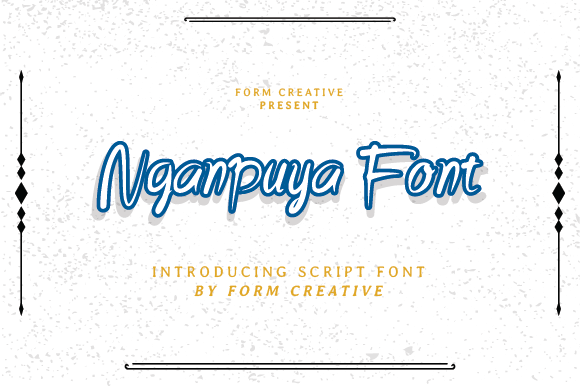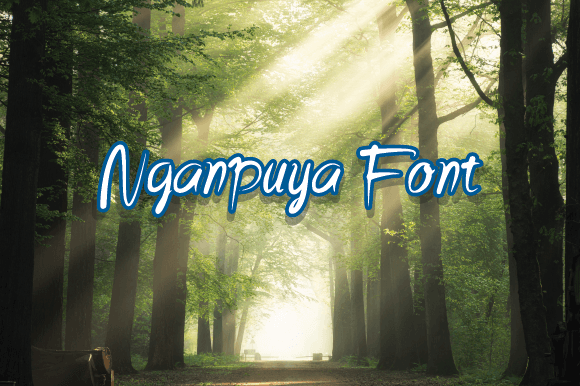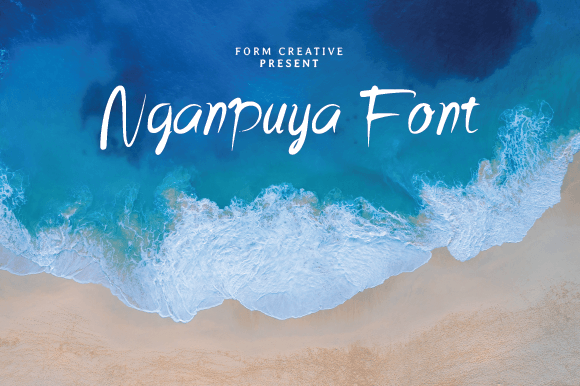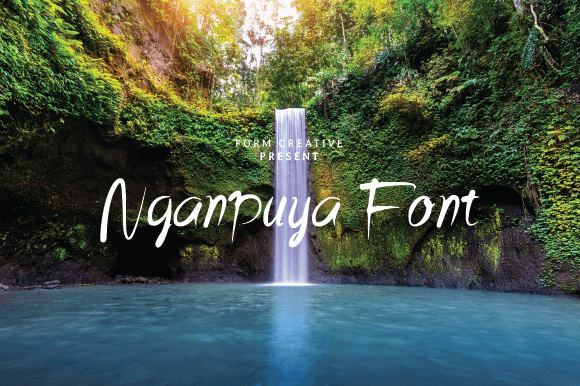
Nganpuya Font
About Nganpuya Font
The Nganpuya Font Download is a fun, quirky, and modern handwritten typeface that adds personality and creativity to your designs. Its casual strokes and playful curves give projects a lively, approachable, and stylish feel. As a result, it is perfect for designers who want their work to stand out while still being easy to read and highly versatile.
Moreover, Nganpuya is designed for flexibility. It adapts smoothly to both digital and print projects, making it suitable for branding, social media posts, greeting cards, and DIY crafts. In addition, its charming style works equally well for professional designs and personal creative projects.
Features of Nganpuya Font
When you download the Nganpuya Font, you’ll enjoy several standout features:
• A fun and quirky handwritten script with a modern style
• Smooth curves and casual strokes for a lively look
• Excellent readability for both large and small text
• A versatile design suitable for digital, print, and handmade projects
• A playful personality that adds uniqueness to every design
Best Uses for Nganpuya Font
The Nganpuya Font Download shines in many creative applications. For example, it works beautifully in:
• Branding and logos – Add modern flair to lifestyle and creative businesses
• Greeting cards and invitations – Fun, stylish typography with a personal touch
• Social media graphics – Eye-catching posts for Instagram, Pinterest, or blogs
• DIY crafts and handmade designs – Bring warmth and creativity to personal projects
• Posters and headlines – Bold handwritten text that captures attention instantly
• Apparel and packaging – Perfect for t-shirts, labels, and product designs
Because of its adaptability, Nganpuya quickly becomes a go-to choice for designers working across multiple platforms.
Why Choose Nganpuya Font
Unlike ordinary typefaces, the Nganpuya Font Download combines playful charm with modern usability. Its casual handwritten look feels natural and authentic, while its structure keeps it polished enough for professional projects. In addition, its lively energy makes it especially appealing for designs that need a touch of fun without losing elegance.
Furthermore, Nganpuya is easy to use across a wide range of creative tools. As a result, it provides convenience for beginners while also offering flexibility for experienced designers.
In conclusion, the Nganpuya Font Download is a fun and quirky handwritten script that combines modern style with creative charm. From logos and greeting cards to social media graphics and DIY crafts, this versatile font adds personality to every design.